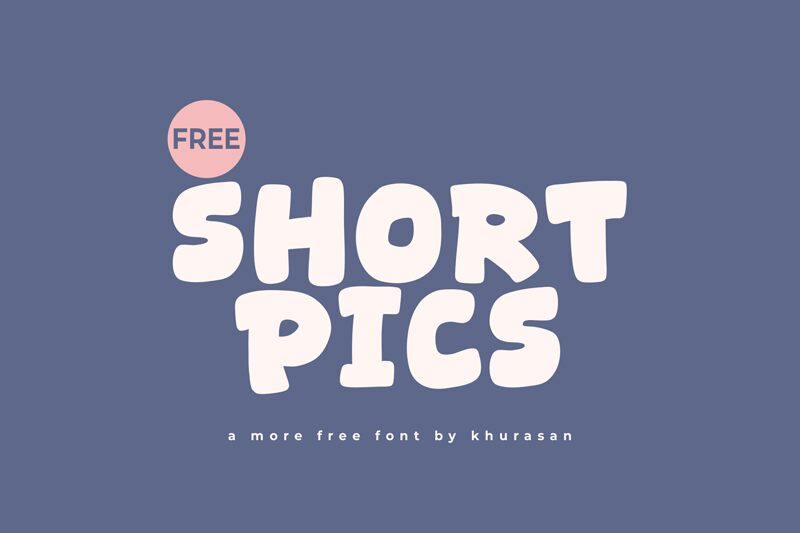
Short Pics font family by Khurasan™ is a playful and informal cartoon-styled free font family with rounded forms. The typeface comes in two font styles with artwork that presents letters in warm and approachable forms combined with pictures that reflect their names. It’s a fun typeface that will bring joy and lightness to your projects instantly and completely effortlessly!
Enjoy Short Pics in your quirky projects that target a younger audience. Use it for package design, comic books, animation posters, pouches, snack packaging, and other uses that will benefit from its amusing style.